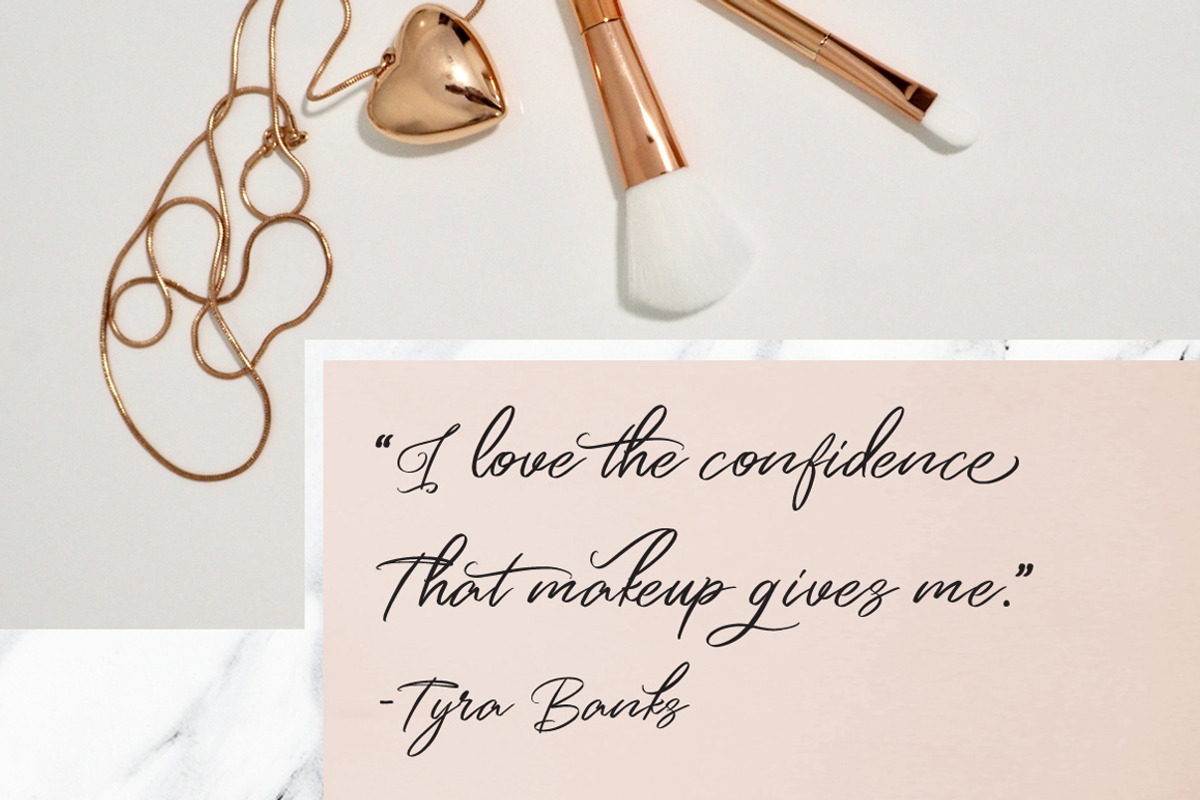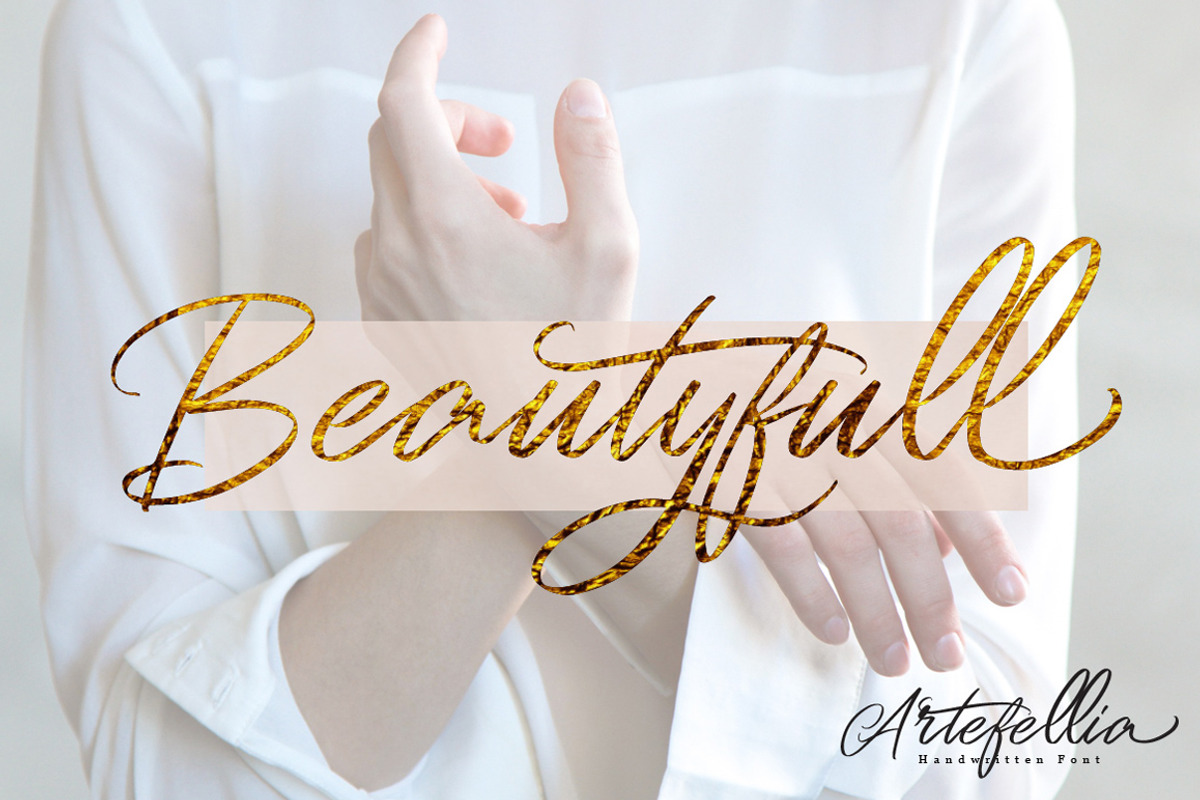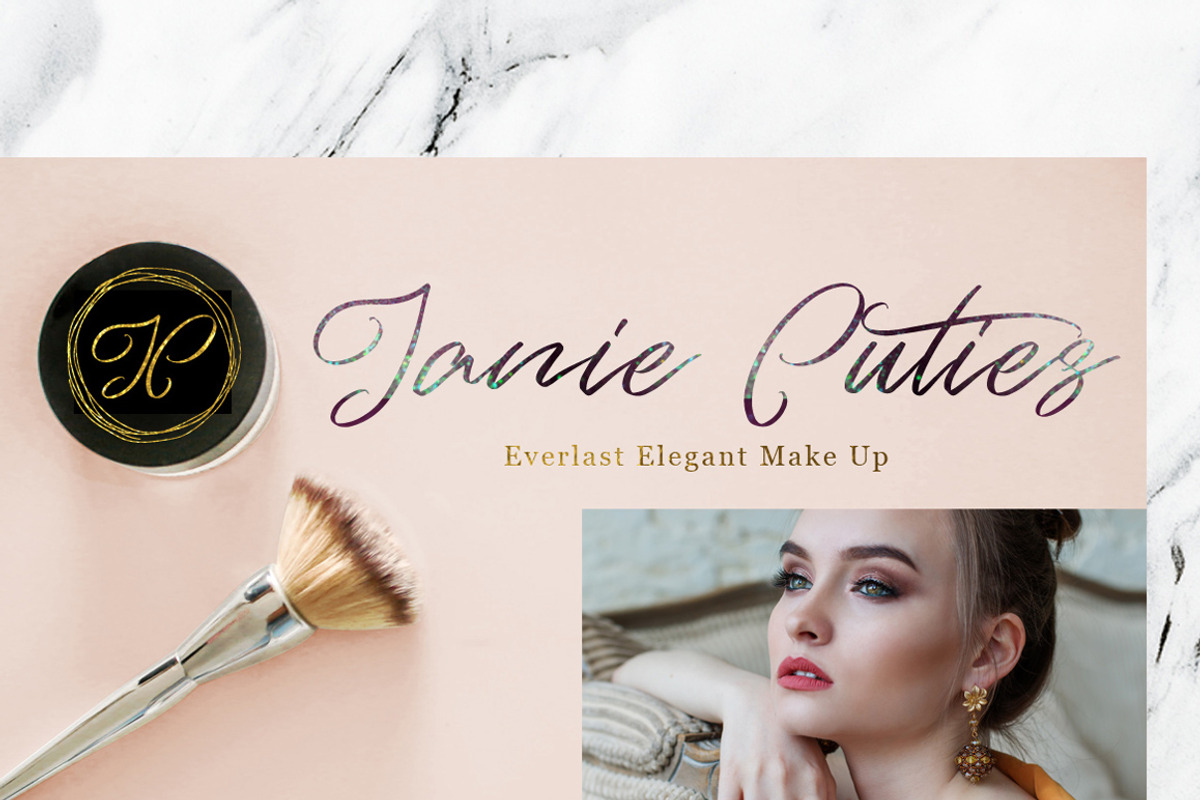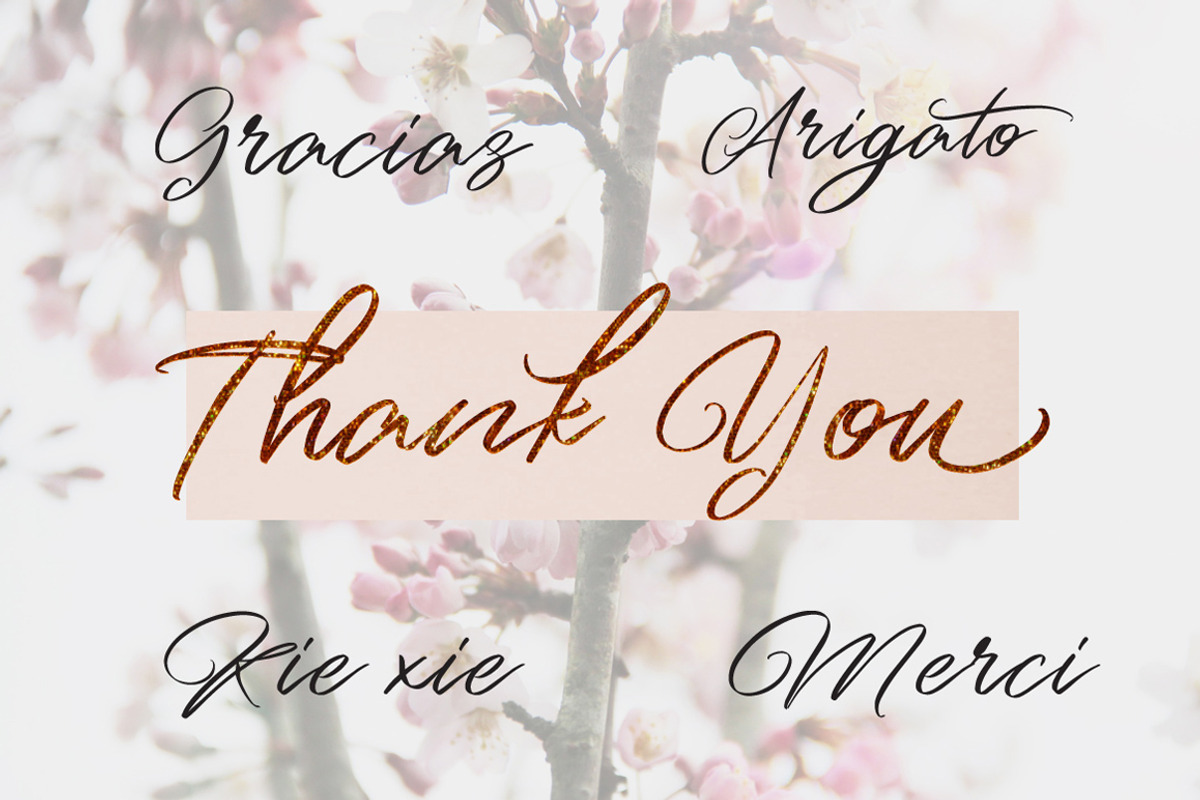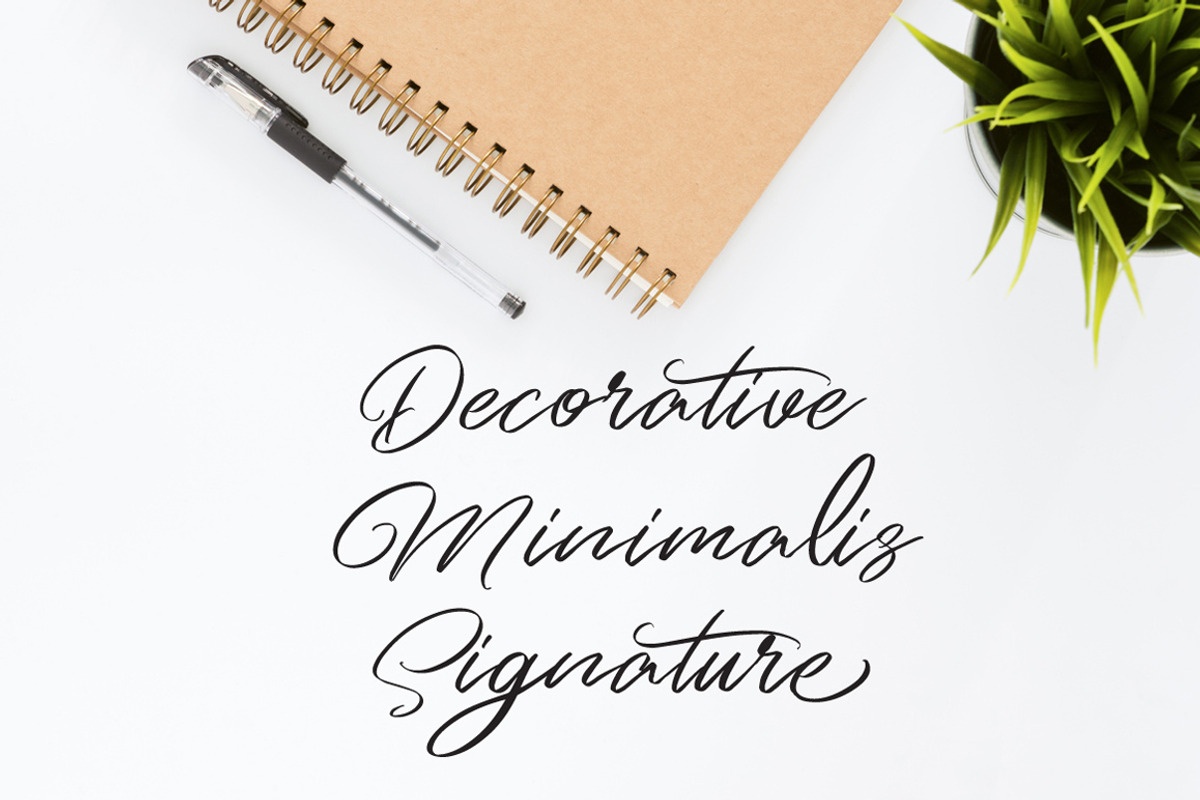
Artefellia - Handwritten Font
Artefellia is Signature Script Font with Handlettering Brush Style, with OpenType feature include of the font. Suitable for design, element design, wedding, event, t-shirt, logo, badges, sticker, and awesome work, etc...
Why Artefellia - Handwritten Font is worth a look
Artefellia - Handwritten Font by FHFont fits naturally into Branding, posters, packaging, typography.